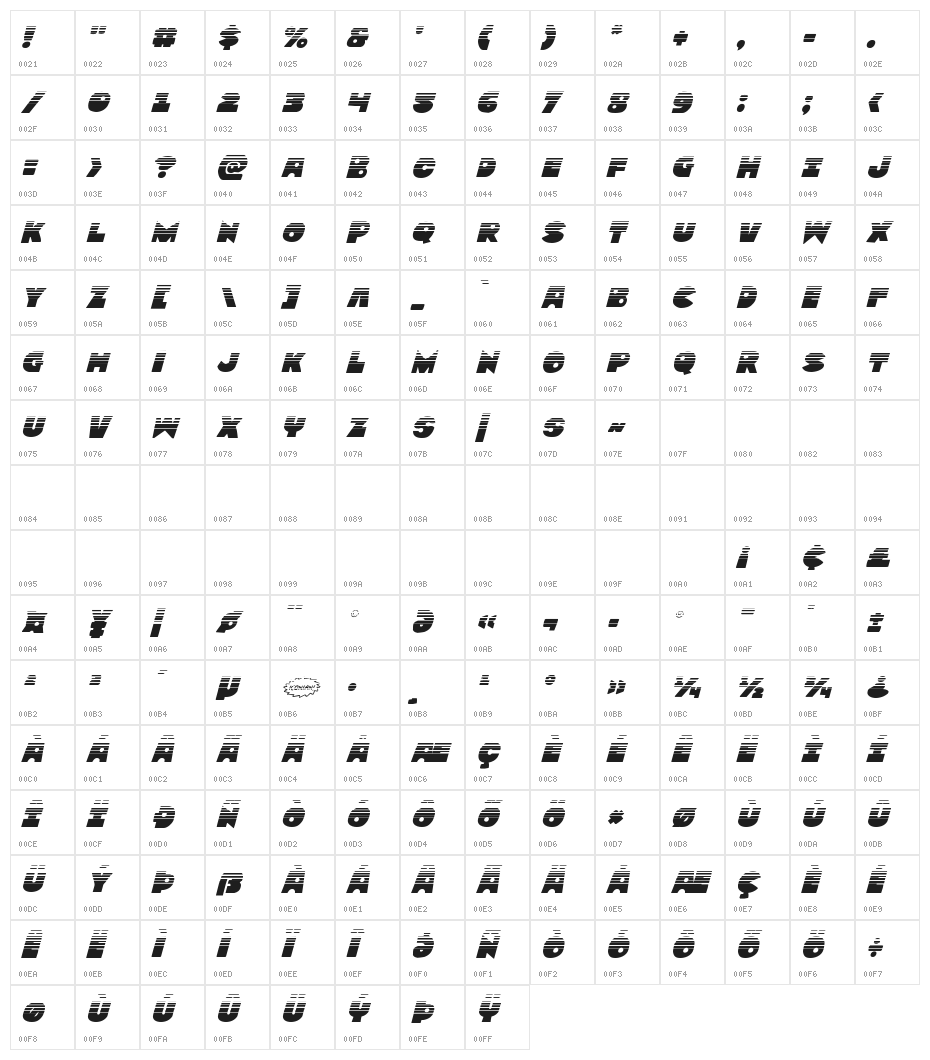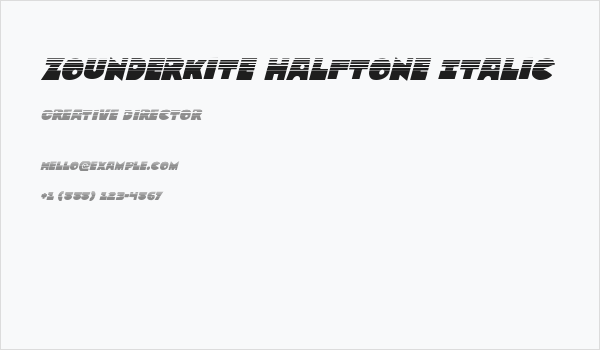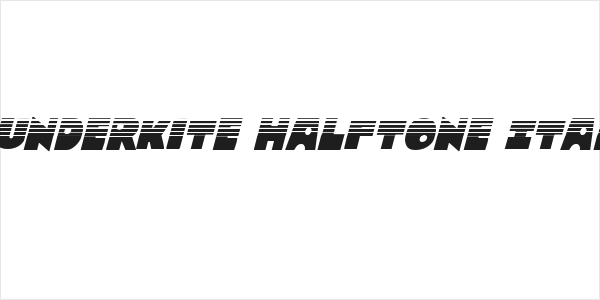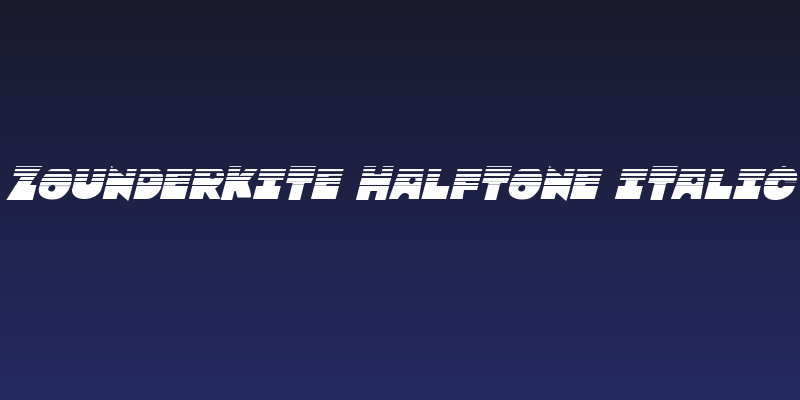
Zounderkite Halftone Italic Font
Zounderkite Halftone Italic Description
This font features a bold, dynamic design with a halftone effect that gives it a unique, textured appearance. The characters are italicized, adding a sense of motion and energy. The uppercase and lowercase letters are consistent in style, with sharp angles and a futuristic feel. The numbers and special characters maintain the same bold and textured look, making them stand out. This font is ideal for projects that require a modern and edgy aesthetic, such as posters, album covers, or branding for tech companies.
| Proposed Projects | Ideal for posters, album covers, tech branding, and any project needing a modern, edgy look. |